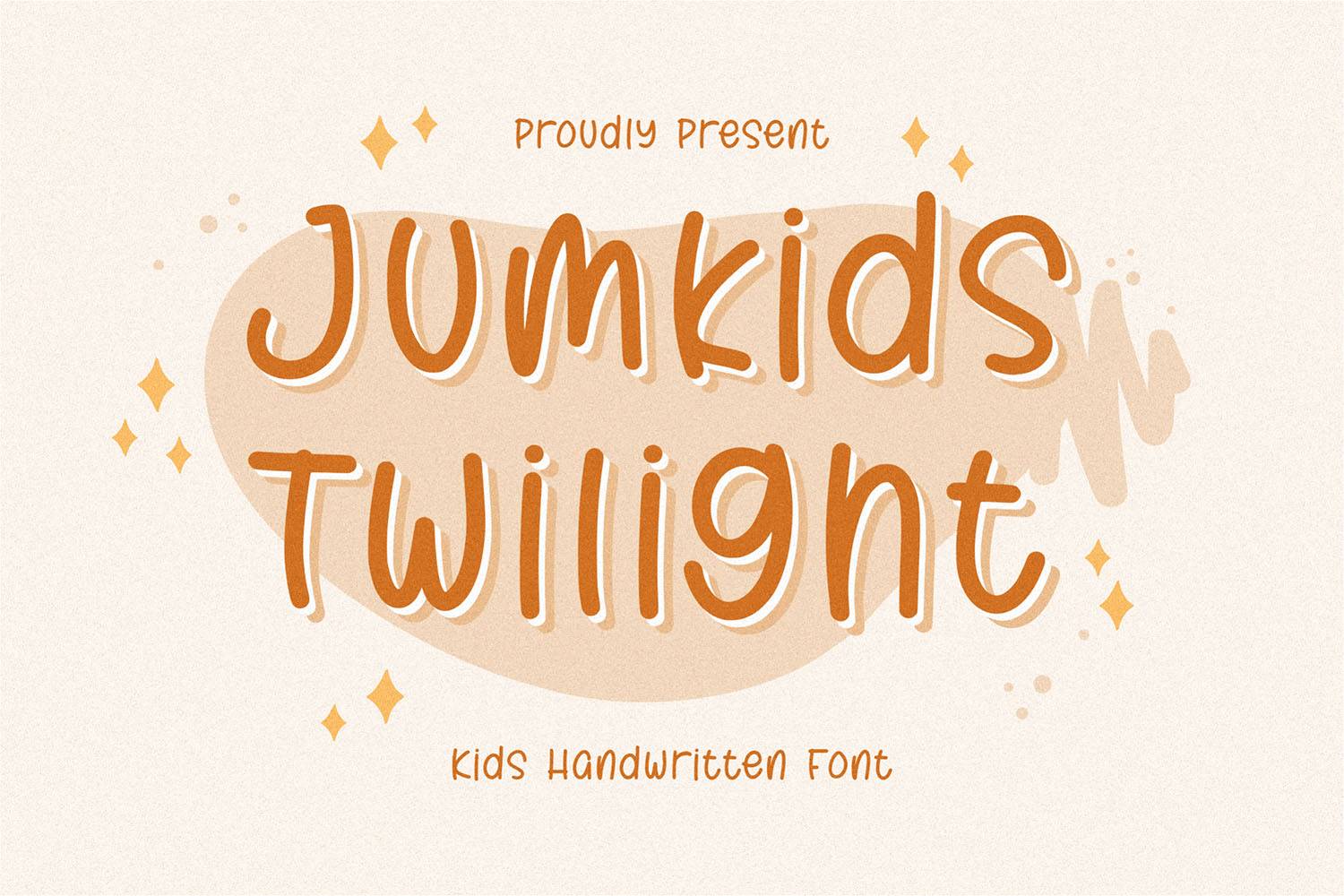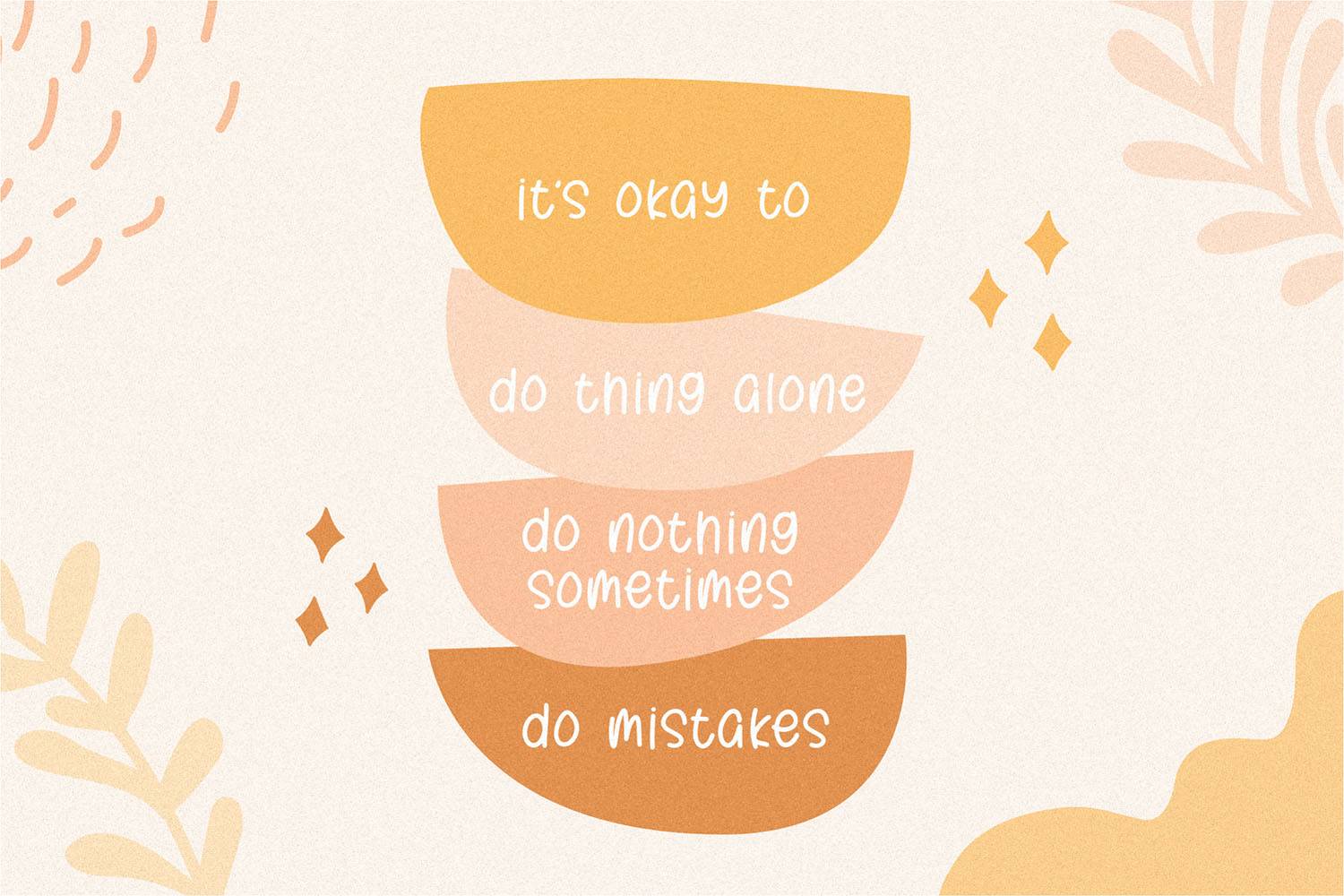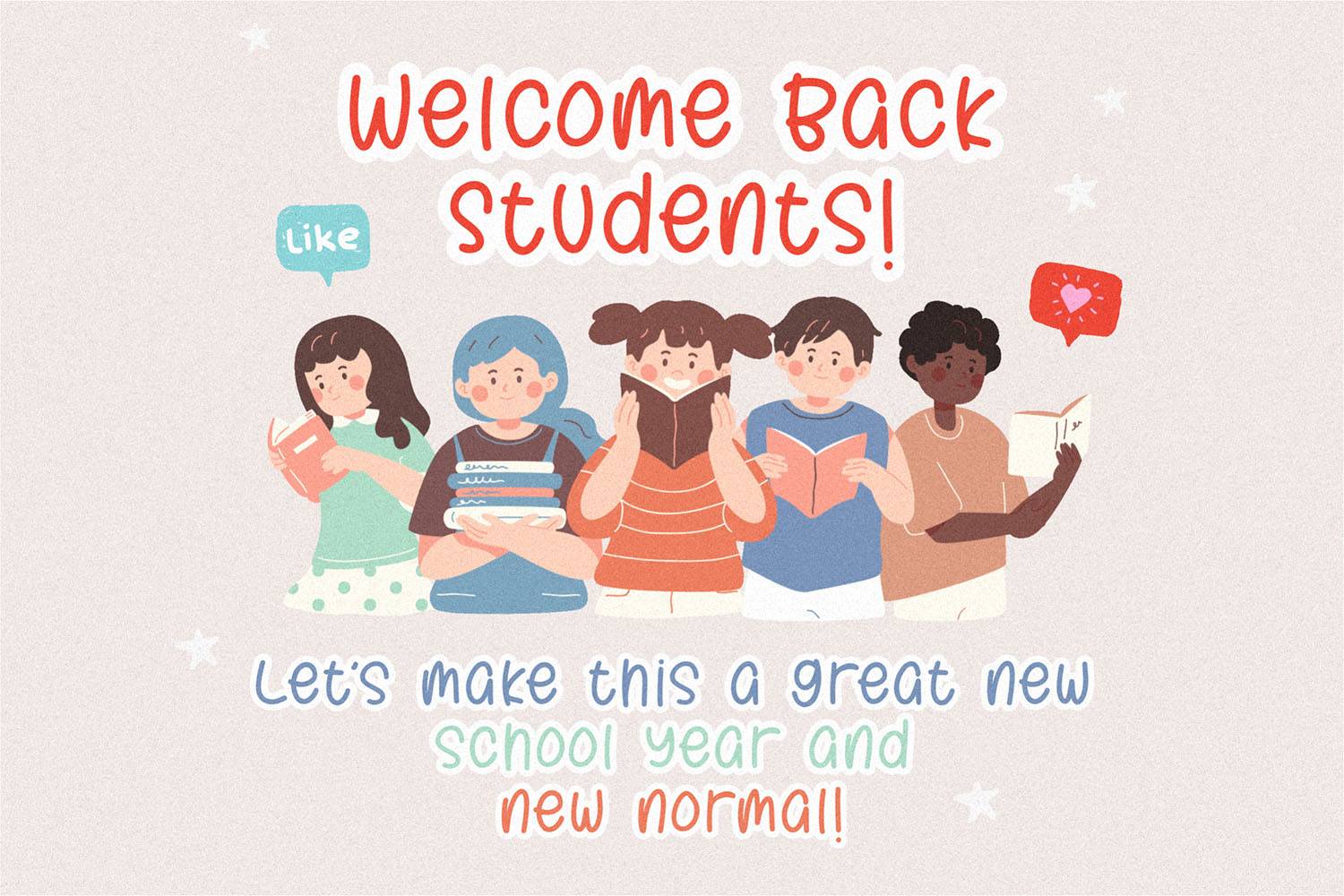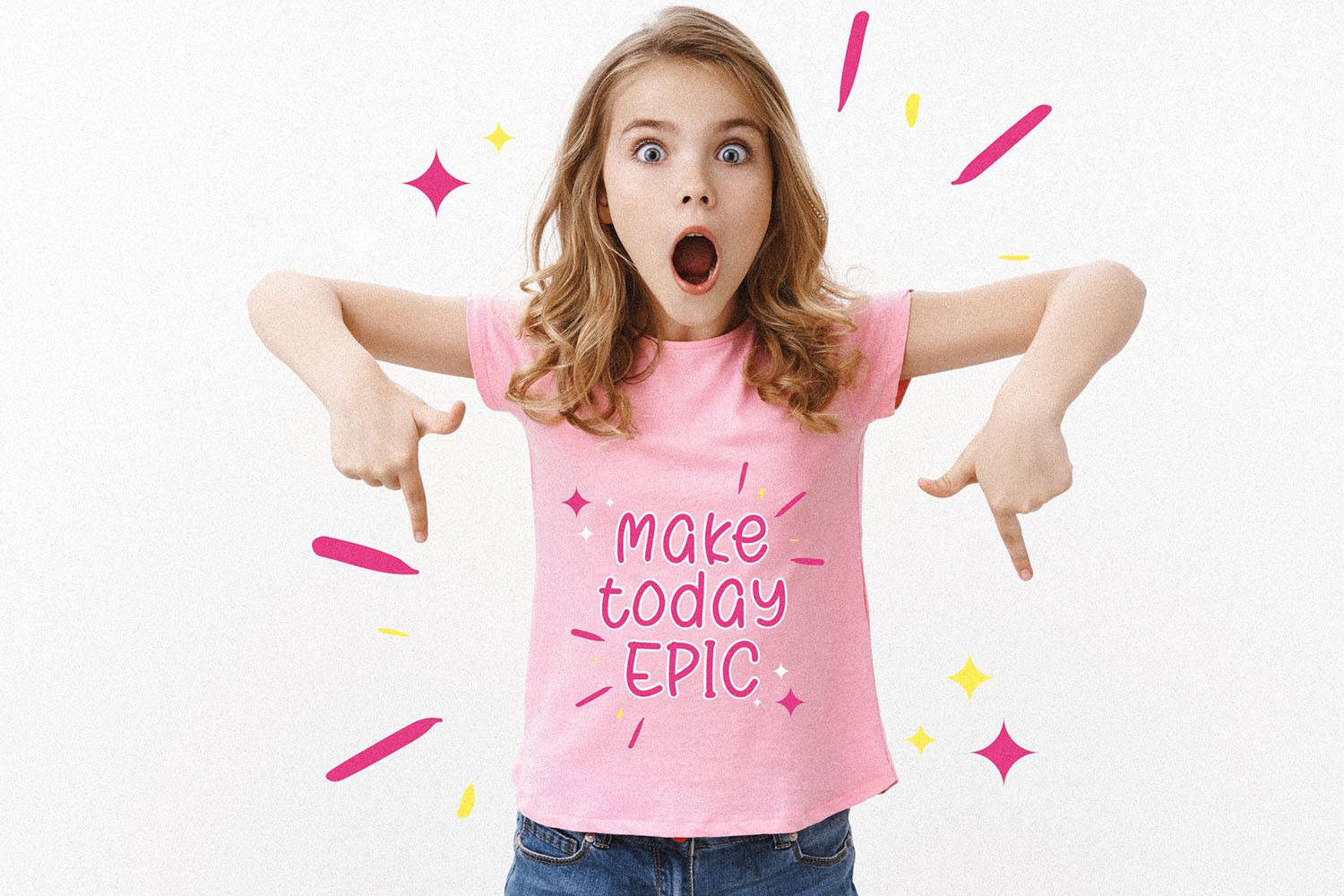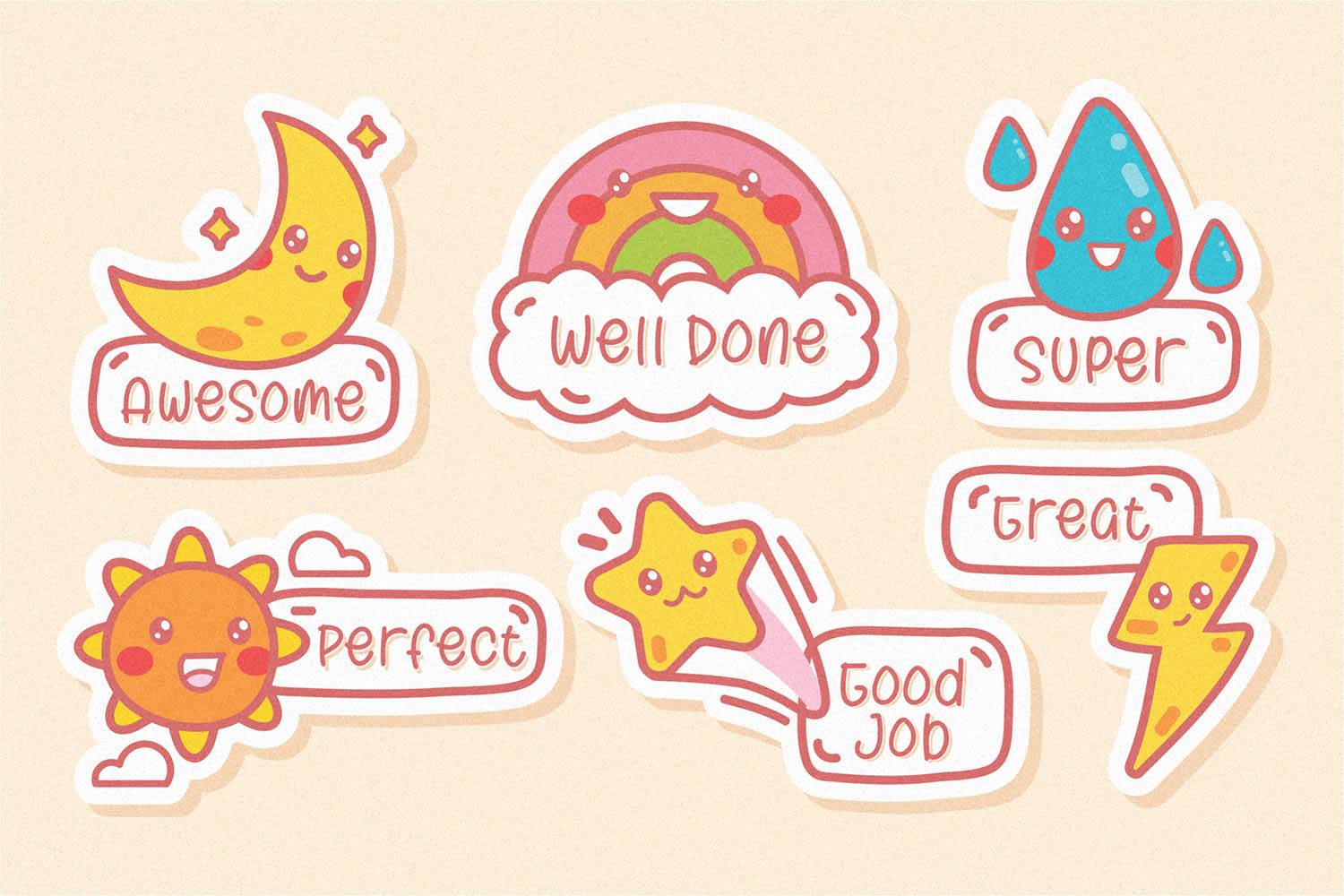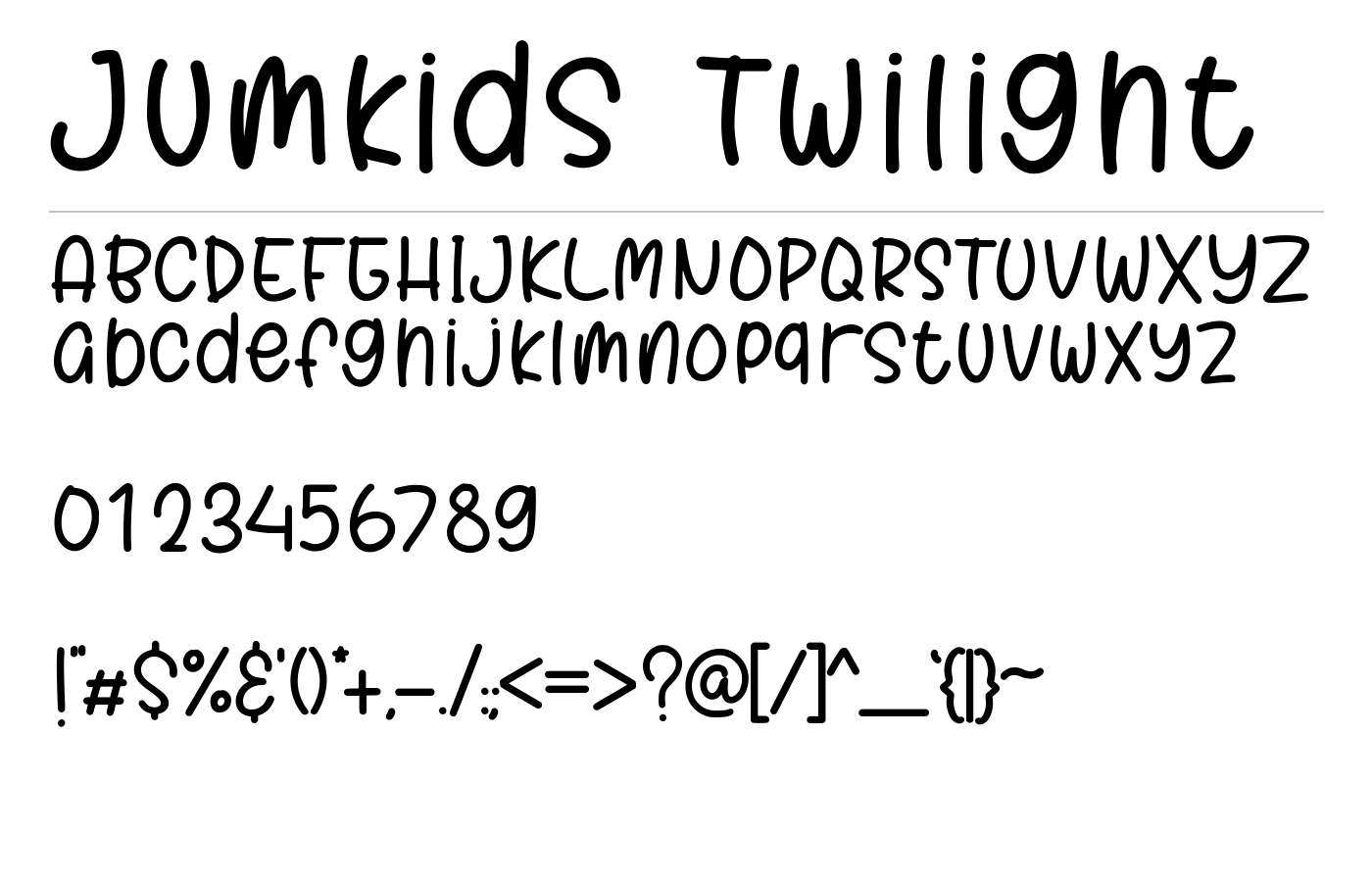
Jumkids Twilight is a playful, handwritten sans serif font with a casual and friendly vibe. Its rounded letterforms and irregular stroke widths create a warm, approachable feel, making it perfect for children’s books, informal branding, or fun packaging. This font works well for headlines and creative projects that want to convey a lighthearted and personal touch.
Jumkids Twilight Font
About Jumkids Twilight Font